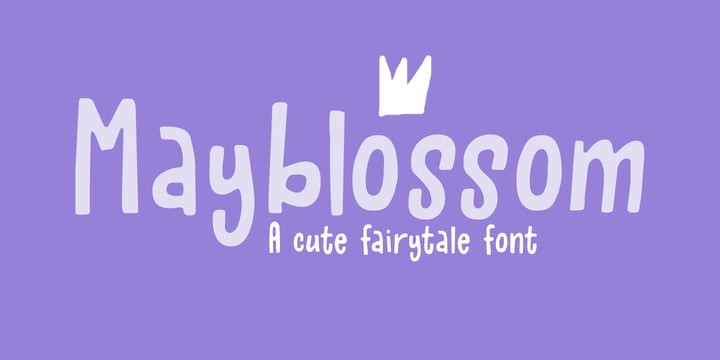
20+ Best Fairytale Fonts for Fantastical Designs
Are you looking for the best fairytale fonts? If you are, then we’ve got you covered!
Similar to fantasy fonts and whimsical fonts, the characteristics of the fairytale typefaces make them perfect for creating captivating content that stands out.
A typeface with a broad range of features and a schematic color pattern with full-feature accessibility is vital to create magical project designs that kids enjoy the most.
The fonts’ sleek and contemporary appearances make them appropriate for any design project. Each of these fonts has a classic aesthetic that is likely to go well with your business and marketing materials.
They come in a variety of styles and colors, so you can choose the perfect one for your requirements. The letters of fairytale fonts have been developed in a range of sizes and shapes for desktops, laptops, MacBooks, mobile phones, and other electronic devices.
Thanks to its advanced flexible features, this font category is suitable for any digital project. This article includes some of the most appropriate fonts that you might require.
20+ Best Fairytale Fonts (Fantasy Storybook Fonts)
1. Fairytales Script Font
A modern font for your next projects
Fairytales is an inspiring font, perfect for fantasy storybooks and magical projects. Just like its name, this font is a great option for story-based themes.
2. Radines
A playful font for your designs
This digital-style font has a gorgeous texture that makes it perfect for headlines, logos, typographical quotes, and other designs with a flashy touch.
Radines display font comes up with dual case letters, alternates glyphs, international glyphs, standard characters, numbers, punctuations, and ligatures. It is available in OTF, TTF, and web font formats.
3. The Fairytales Bonus
A powerful and versatile font
This display typeface is inspired by classic ads and movie posters.
It comes with 231 glyphs and alternate characters that are accessible by Adobe Illustrator and InDesign.
A bonus of this font is that it contains 10 hand-drawn vector animal illustrations to enhance your project.
This typeface is ideal for projects like headlines, badges, wedding invites, greeting cards, signatures, etc.
The synergistic vintage vibes and the OpenType features of this font create a harmonic and attractive design.
4. Fairytales Script
A new handmade typeface font
This organic handmade typeface has a beautiful dancing baseline style, suitable for projects like headings, logotypes, wedding invites, merchandise, letterheads, signature, labels, news headlines, posters, badges, and more.
5. Fairy Tail
A special fantasy font for your needs
This fantasy display font is ideal for a wonderland design.
This cartoonish font is used in a wide range of illustrations for children, like adventures, games, parties, events, etc.
6. Langlock
An elegant font for your designs
Langlock is a magical typeface designed by Ikiiko. This serif font is inspired by classical fairytales of princes, princesses, and wizards.
This display font is perfect for both classic and vintage book covers, magic stories, flyer designs, poster designs, and inspirational quotes with simple yet stylish text that helps create a dreamy fairytale background image.
To give the projects a sense of elegance and a fairytale theme, we’ve included fonts with vintage, modern, and classical appearances.
The text of these fonts is the most appealing with their trendy letter styles.
We recommend that you try these typefaces because they might help you create a masterpiece.